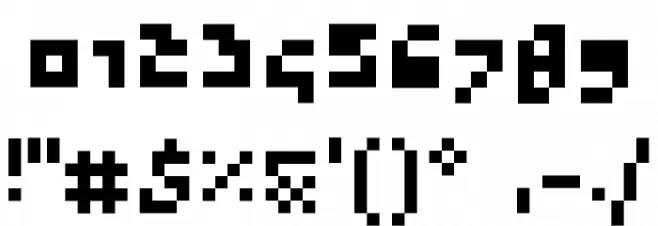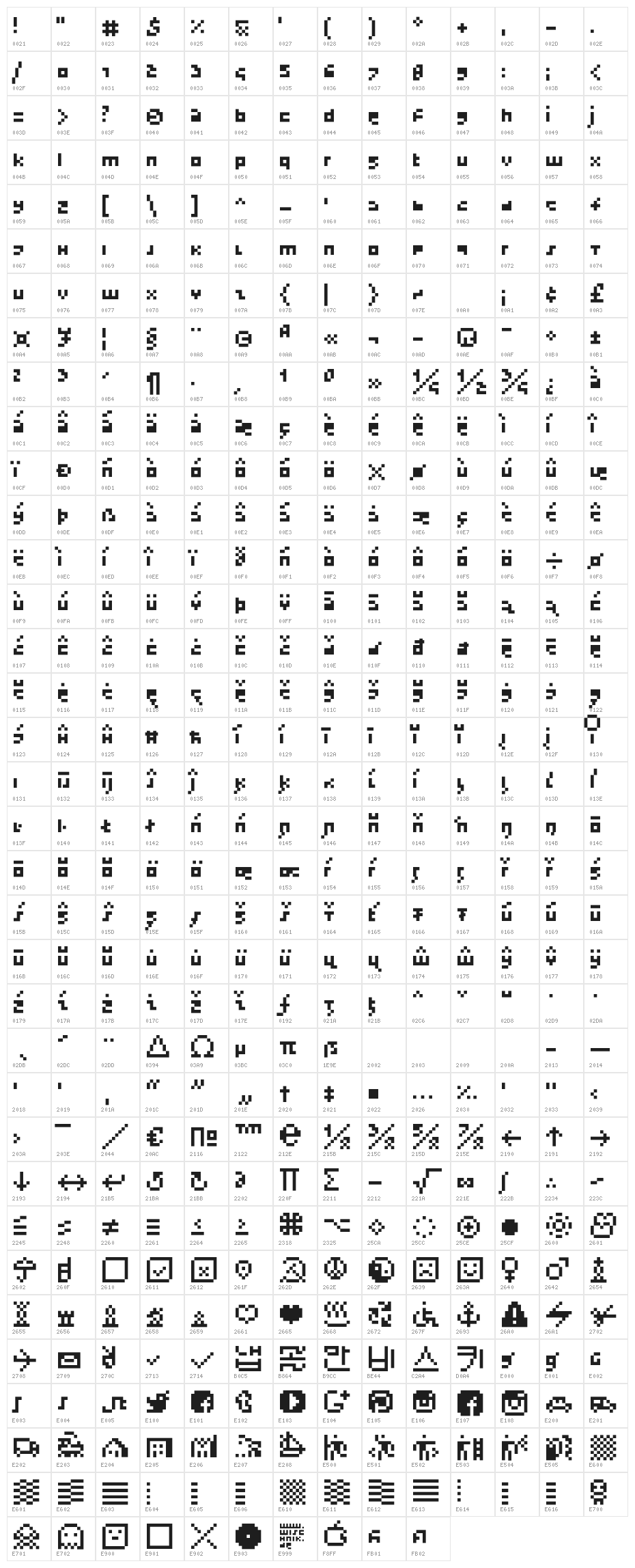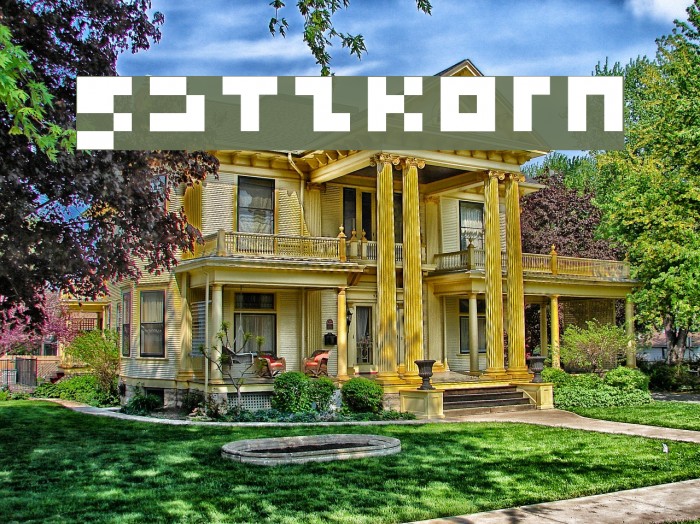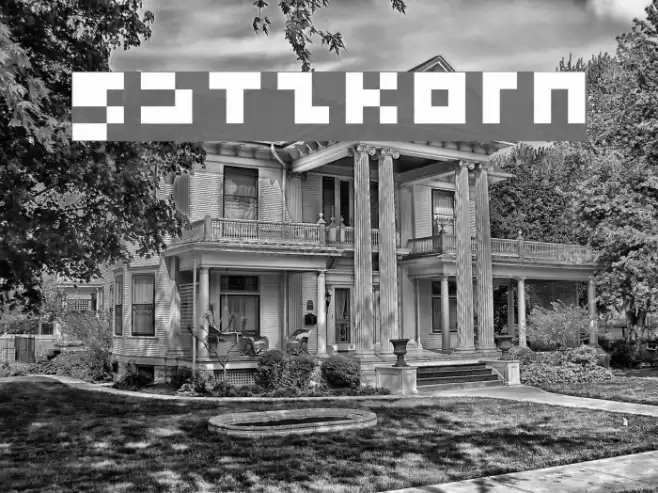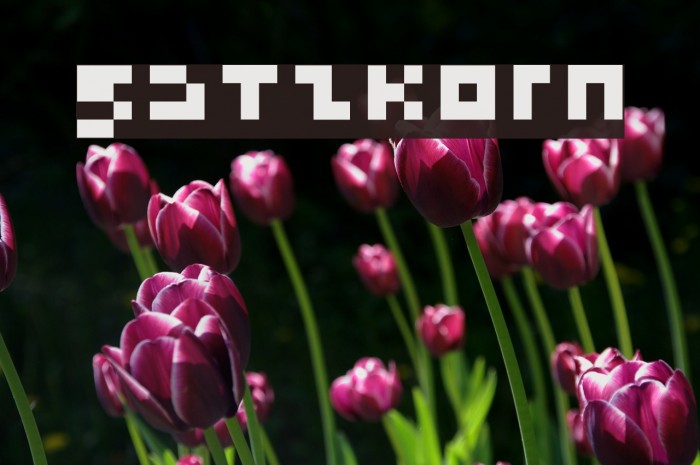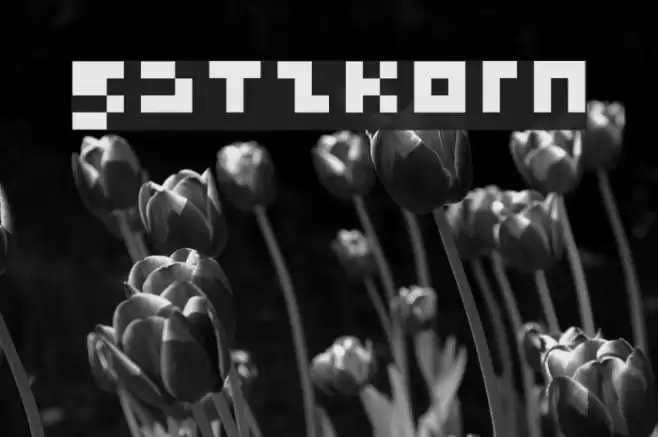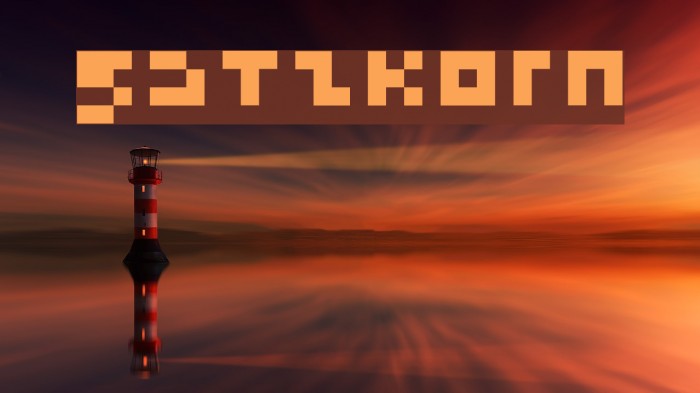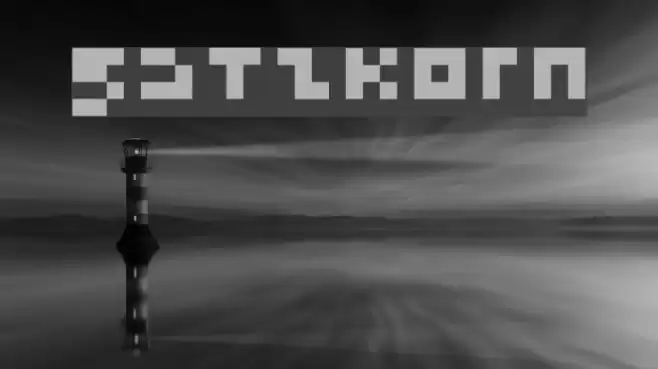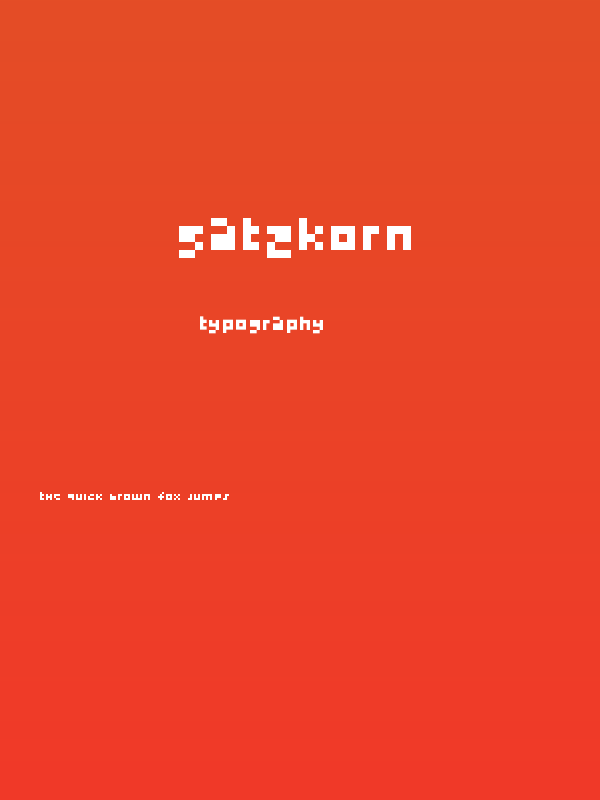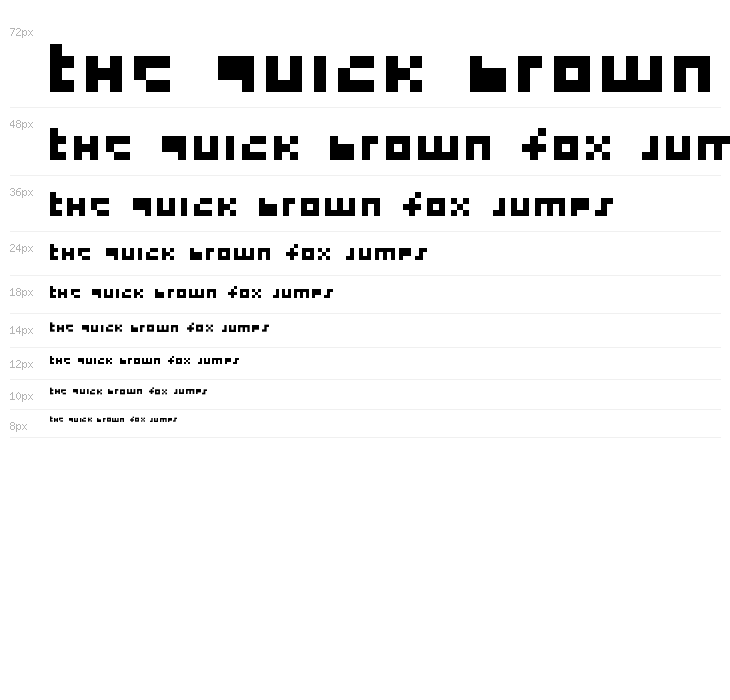
Satzkorn Font
Satzkorn Description
This font features a bold, pixelated style reminiscent of early digital or video game typography. Each character is constructed with a blocky, geometric design, giving it a distinctly retro and technological feel. The uniformity in height and width across both uppercase and lowercase letters creates a cohesive and structured appearance. The numbers and special characters maintain this pixelated aesthetic, ensuring consistency throughout the typeface. The font's simplicity and clarity make it highly legible, even at smaller sizes, while its unique style adds a playful, nostalgic touch to any design.